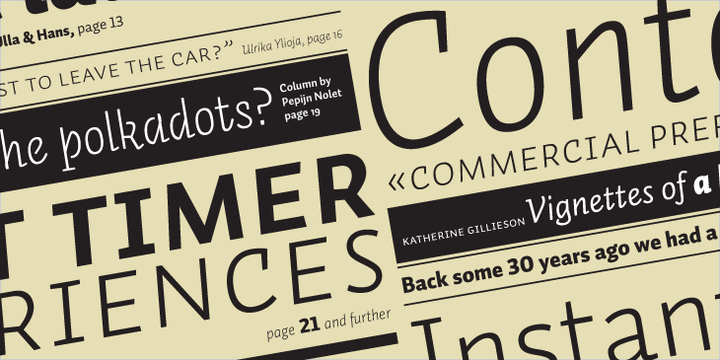
Auto is a sans serif typeface which has three different models of italics, each with its own flavour.
The complete font family consists of 3 x 24 fonts: Auto 1, whose italic is straightforward and restrained; Auto 2, with a personal and friendly italic; and Auto 3 with provocative, almost upright italics, with open counters and strategically placed serifs, loops and swashes. More…
With its three italics, Auto creates a new typographic palette, allowing the user to drive through unknown typographic and linguistic possibilities. Also, because of its four weights and the three different figure styles, it’s a vehicle equipped for many roads of typography.
Take a cruise, and let this typeface carry you to business or leisure.